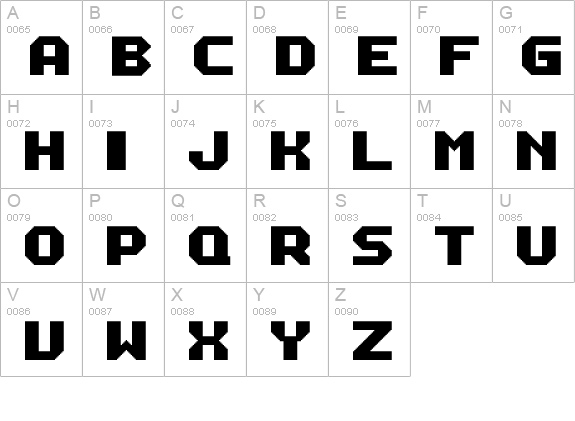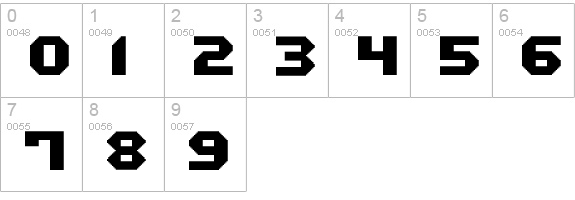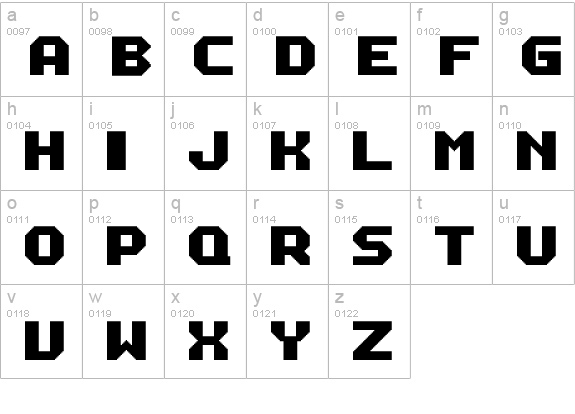
M12_MACH BIKER Font Details
Introducing the electrifying M12_MACH BIKER font, a bold and badass typeface that will rev up your design projects with its edgy and rebellious charm. This font exudes a sense of raw power and speed, making it perfect for any project that demands a strong and daring aesthetic. With its sharp angles and rugged letterforms, M12_MACH BIKER font is reminiscent of the sleek lines and intense energy found in the world of motorcycle racing. It captures the essence of the open road, the thrill of the ride, and the unapologetic attitude of those who live life on their own terms. Not only does M12_MACH BIKER font make a bold statement, but it also offers versatility and flexibility in its usage. Whether you're designing a logo for a motorcycle club, creating eye-catching headlines for a rock concert poster, or adding a touch of rebelliousness to a branding project, this font is sure to leave a lasting impression. And the best part? M12_MACH BIKER font is free! Yes, you read that right. This incredible font is freely available to download at FontsMarket.com, where you can unleash your creativity without any constraints. Embrace the freedom to express your unique style and make a powerful impact with this dynamic typeface. So, if you're ready to infuse your designs with an adrenaline-fueled vibe, look no further than M12_MACH BIKER font. Download it for free at FontsMarket.com and get ready to ride the waves of creativity like never before. Let your imagination soar and watch your designs roar with the unmistakable energy of this exceptional font.